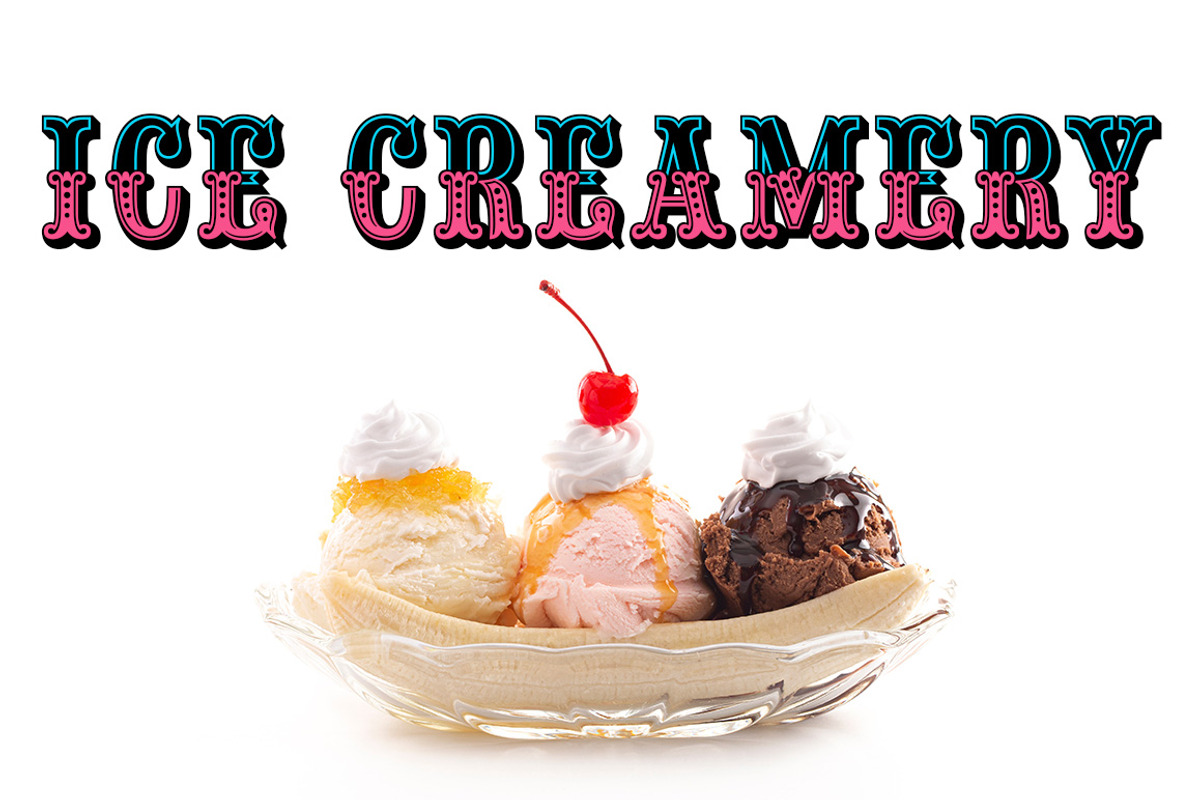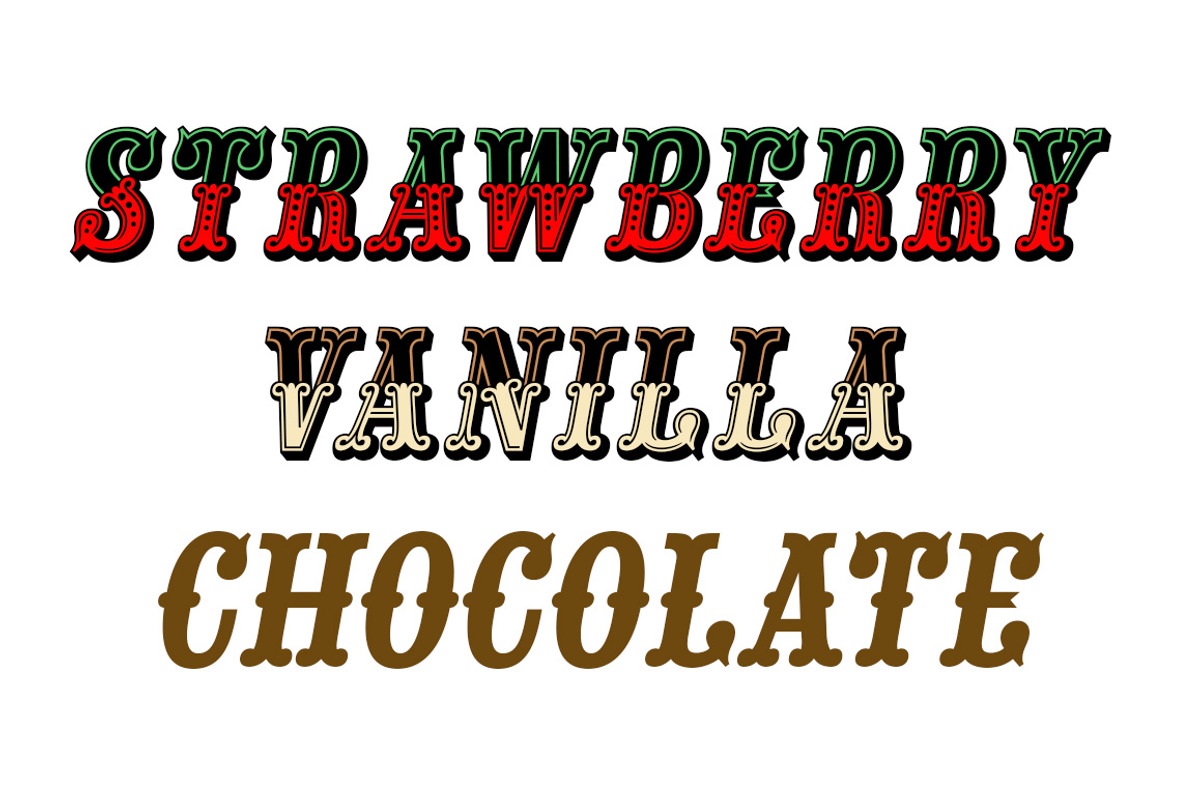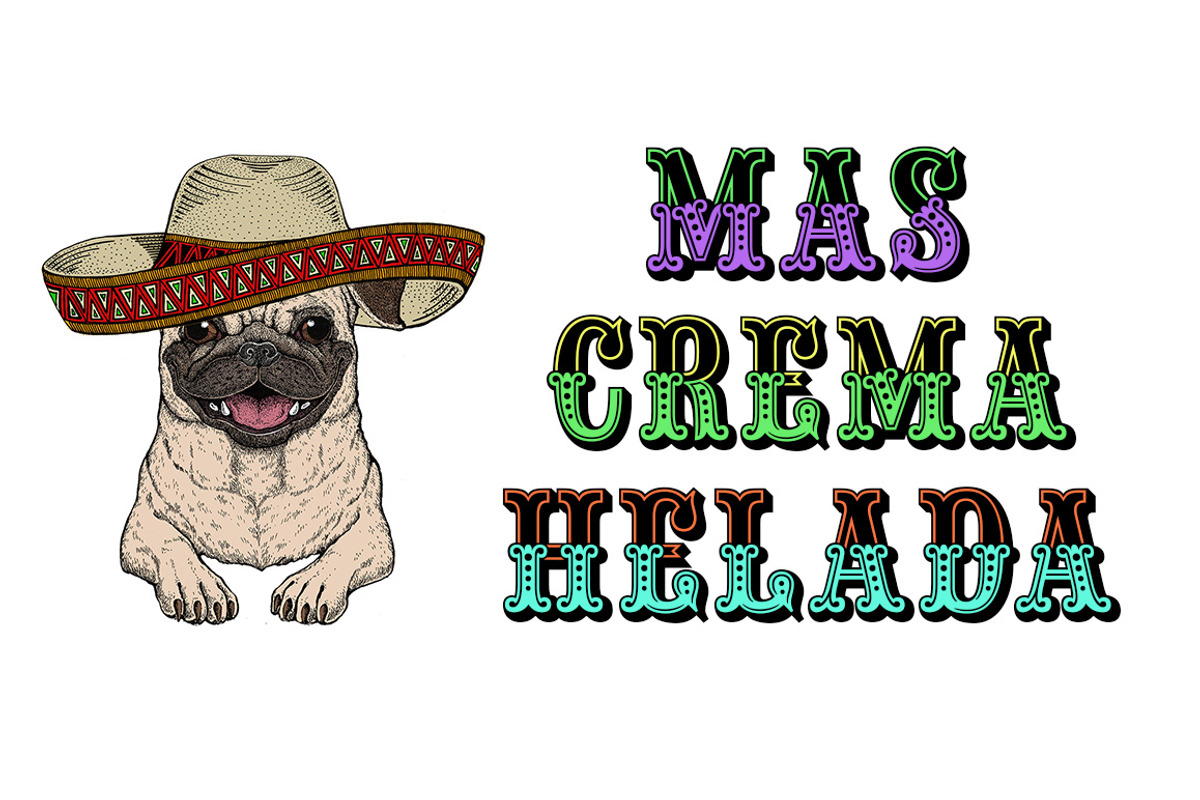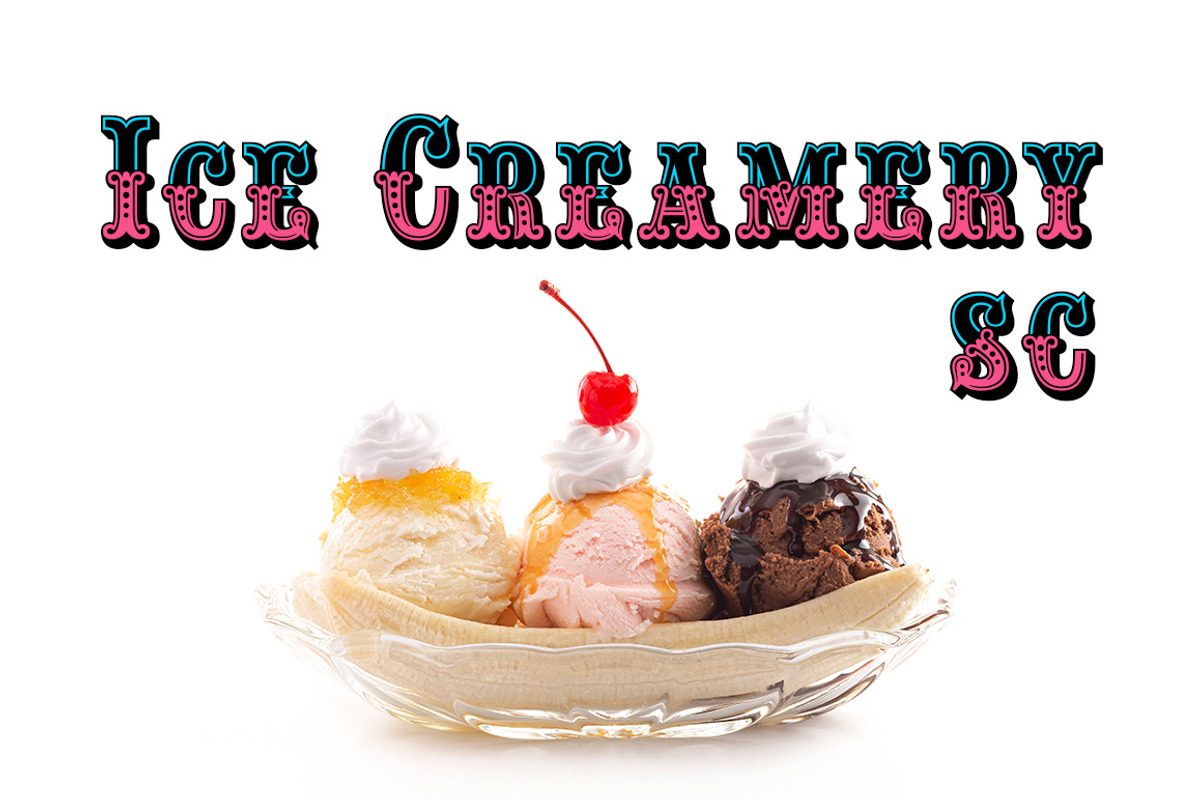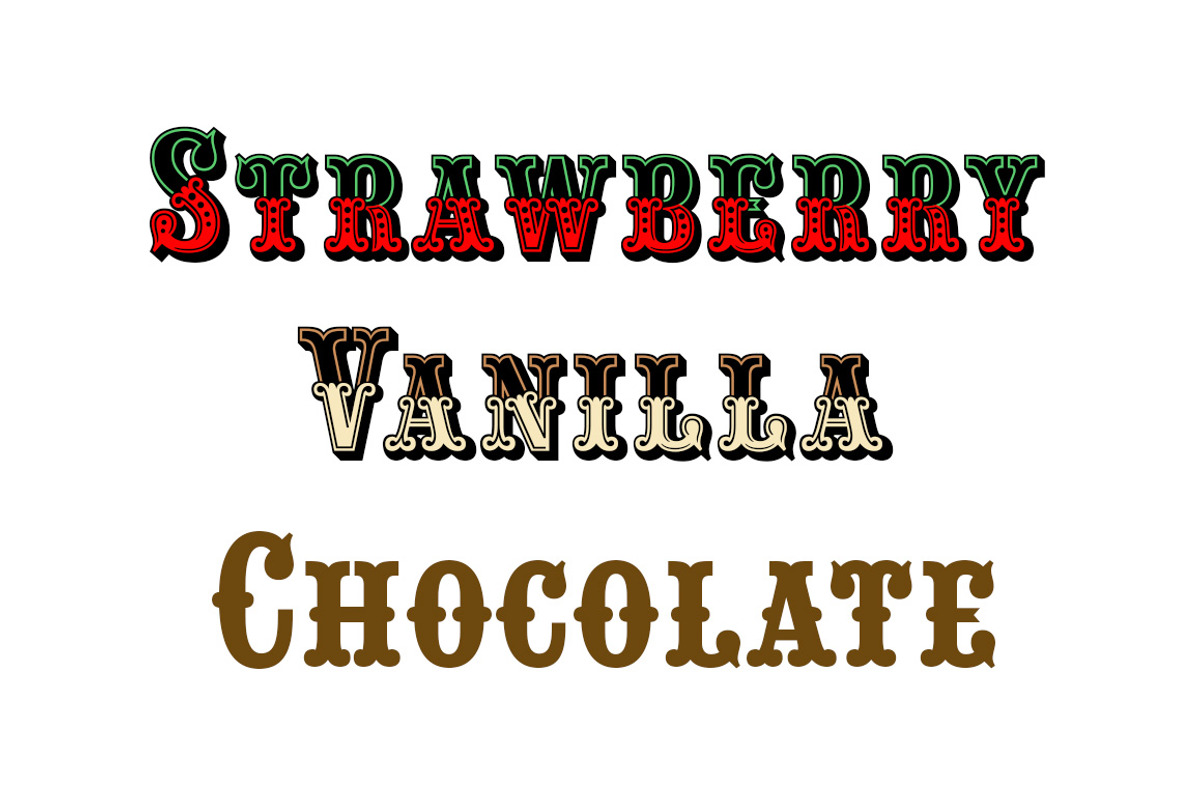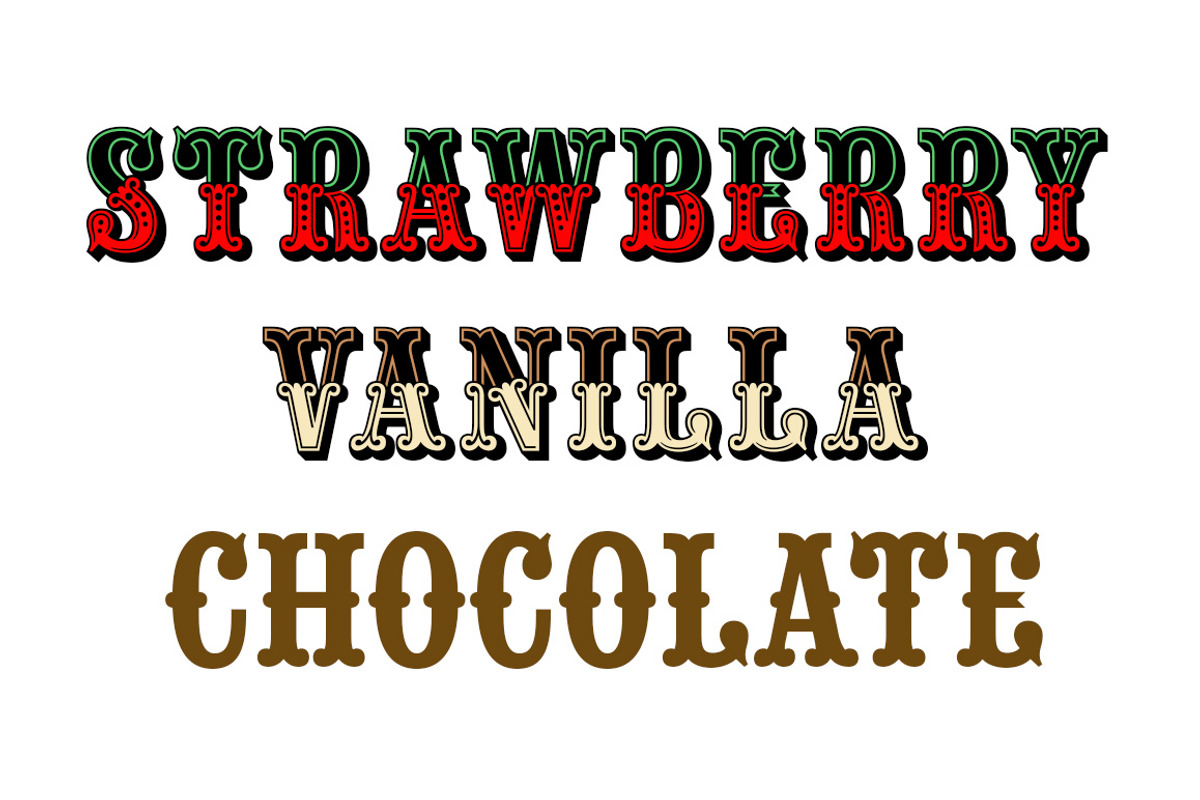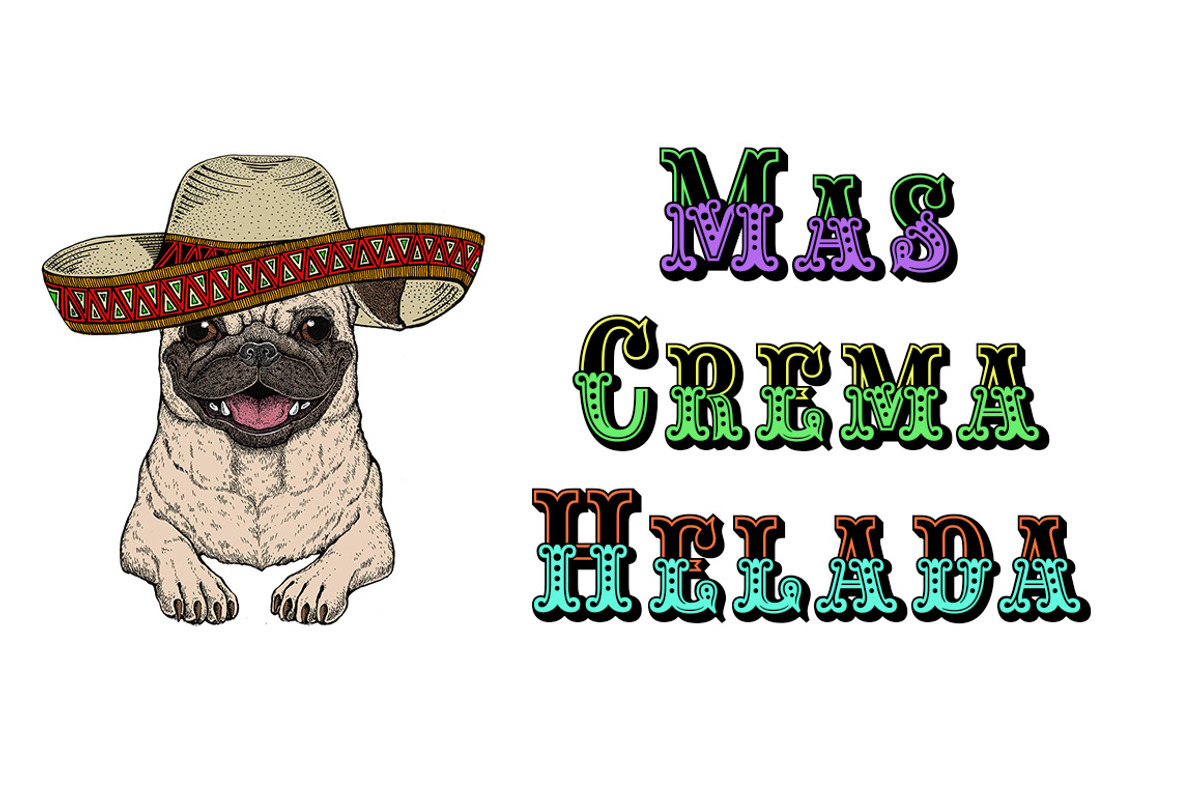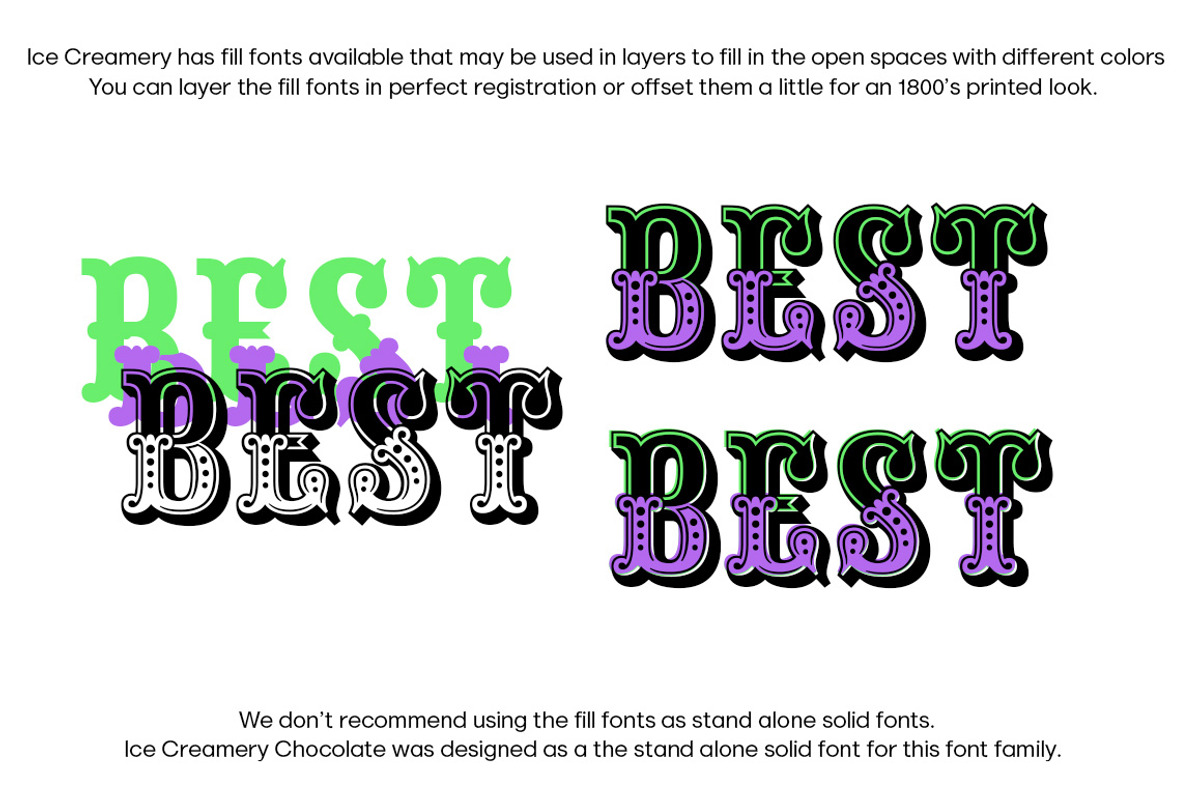
Ice Creamery Complete
Ice Creamery is a new variation of our Saloon Girl font family complete with italics and fill fonts which may be used to layer different colors into the open parts of each glyph.
We don’t recommend using the fill fonts for Ice Creamery as stand alone solid fonts, Ice Creamery Chocolate was designed as a the stand alone solid font for this font family.
Fill fonts go back to the 1850's where they would design matched sets of printing blocks and the layering of colors took place on the printing press, they would print a page in black then on a second printing they would print a solid letter in red or blue over the letters with open spaces to fill them in.
Most of the time the second printing didn't line up exactly to the open faced font and it created a misprinted look.
With the fill fonts in Ice Creamery and other FontMesa fonts you have the option to perfectly align the fill fonts with the open faced fonts or shift it a little to create a misprinted look which looks pretty cool in some projects such as t-shirt designs.